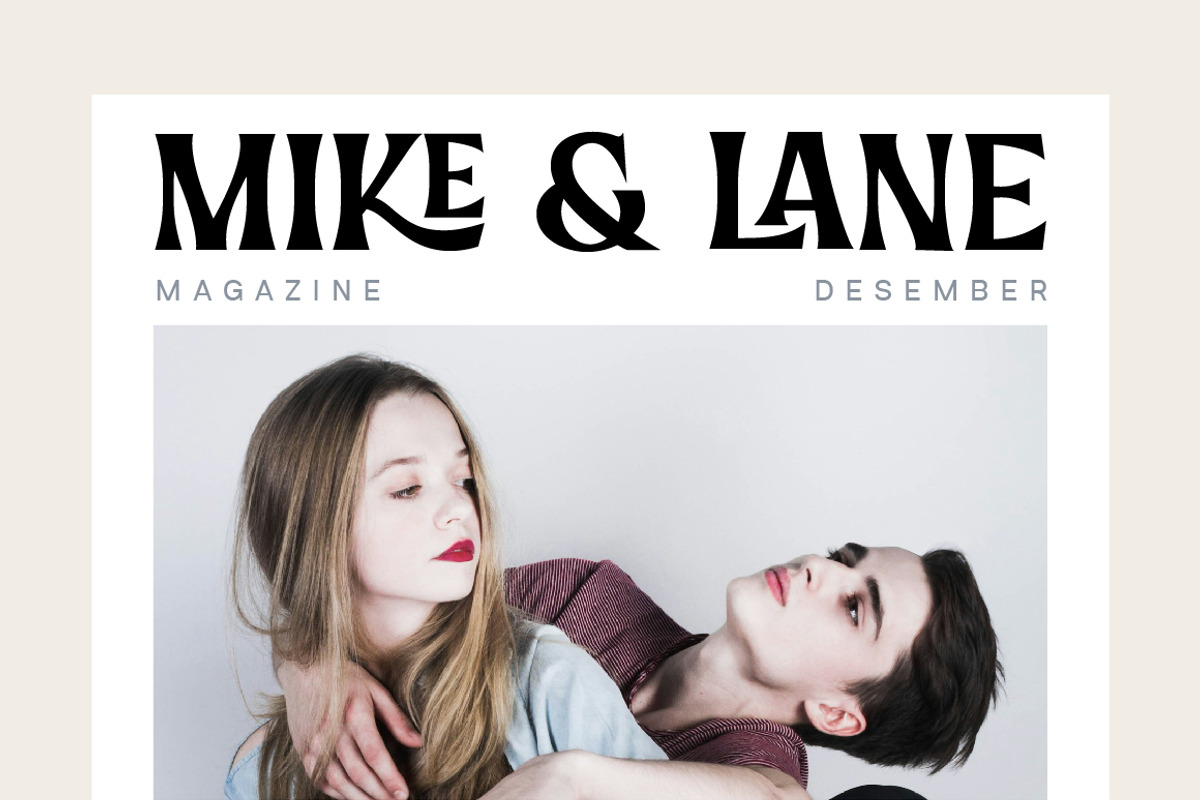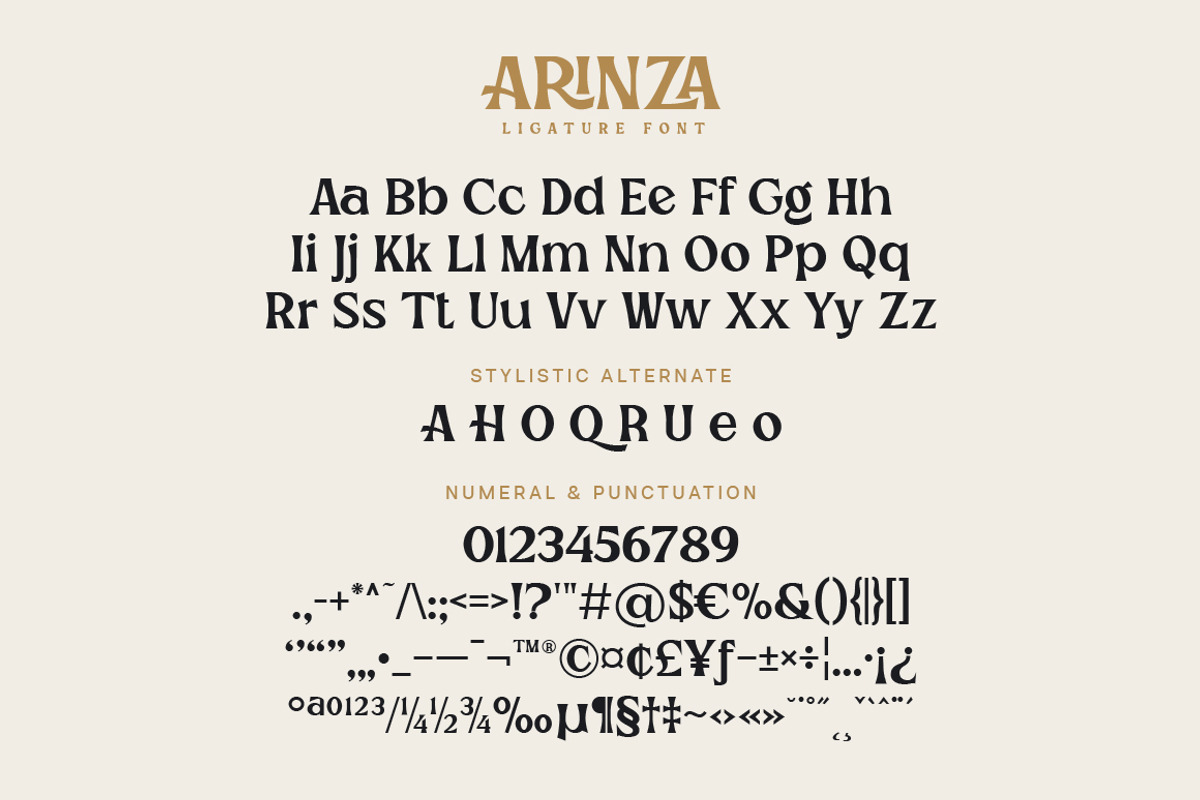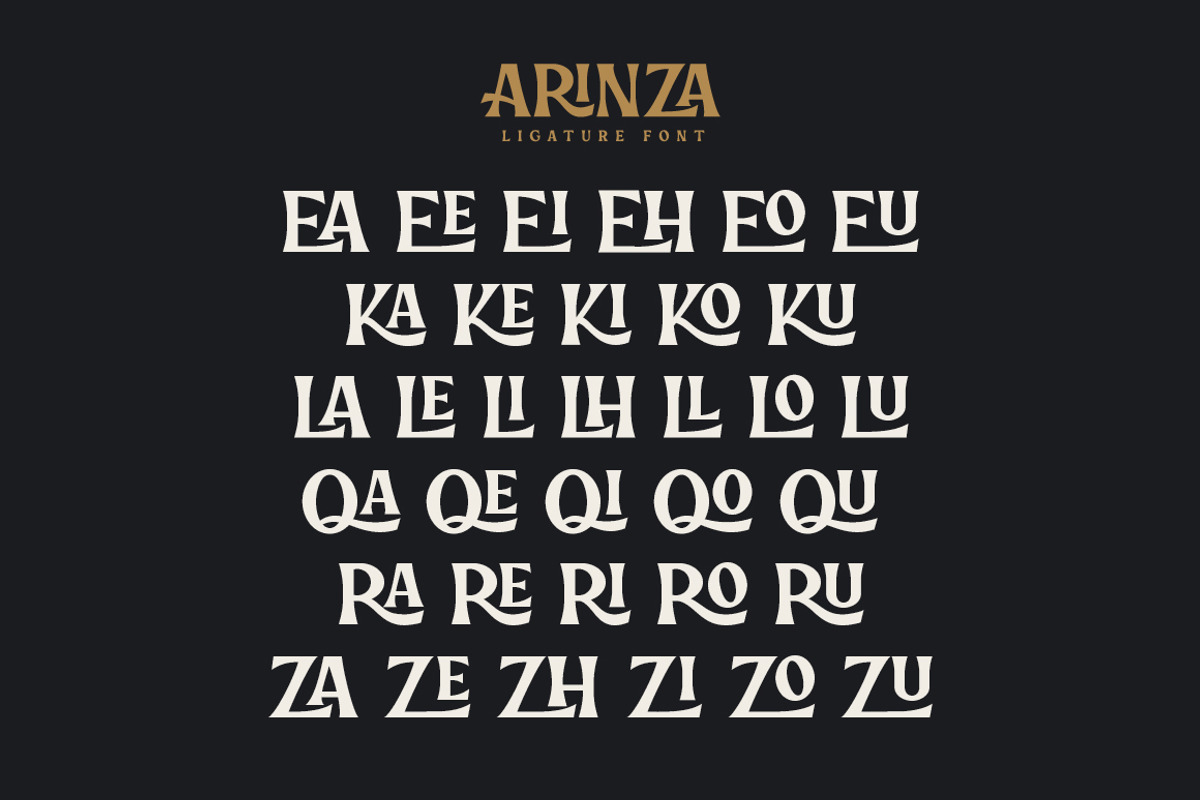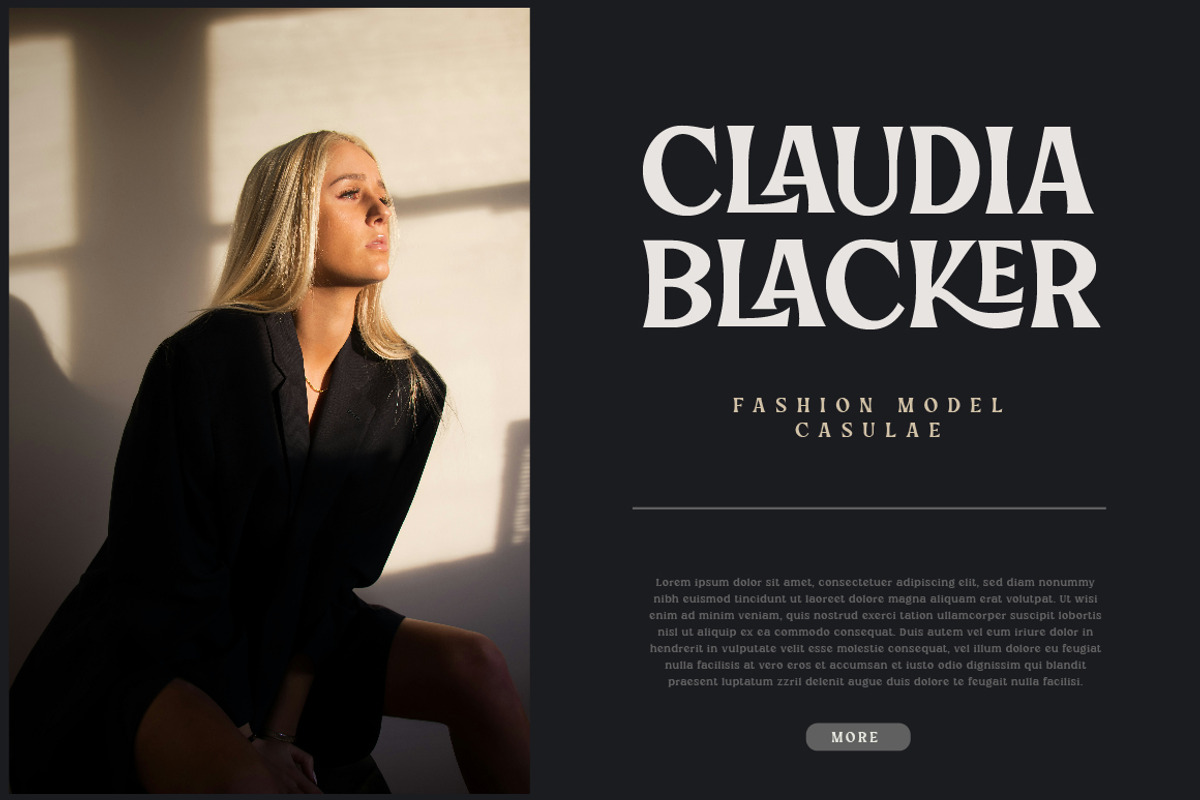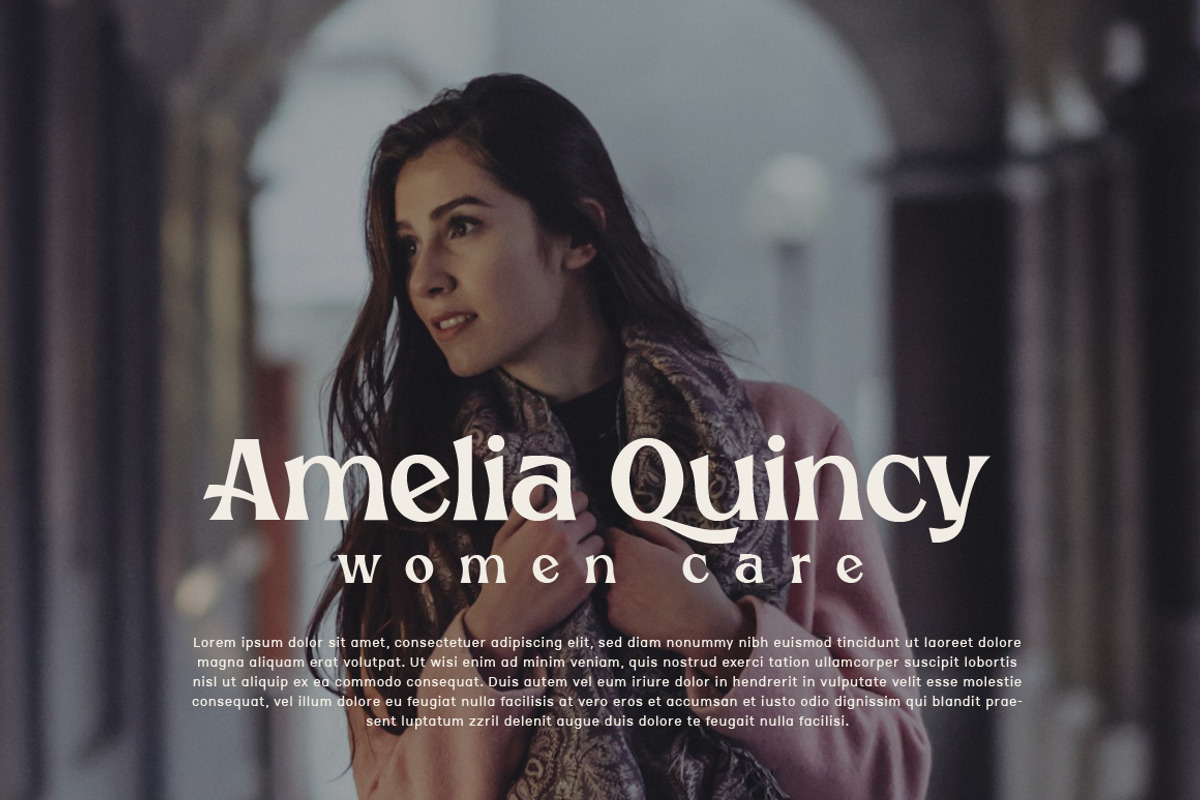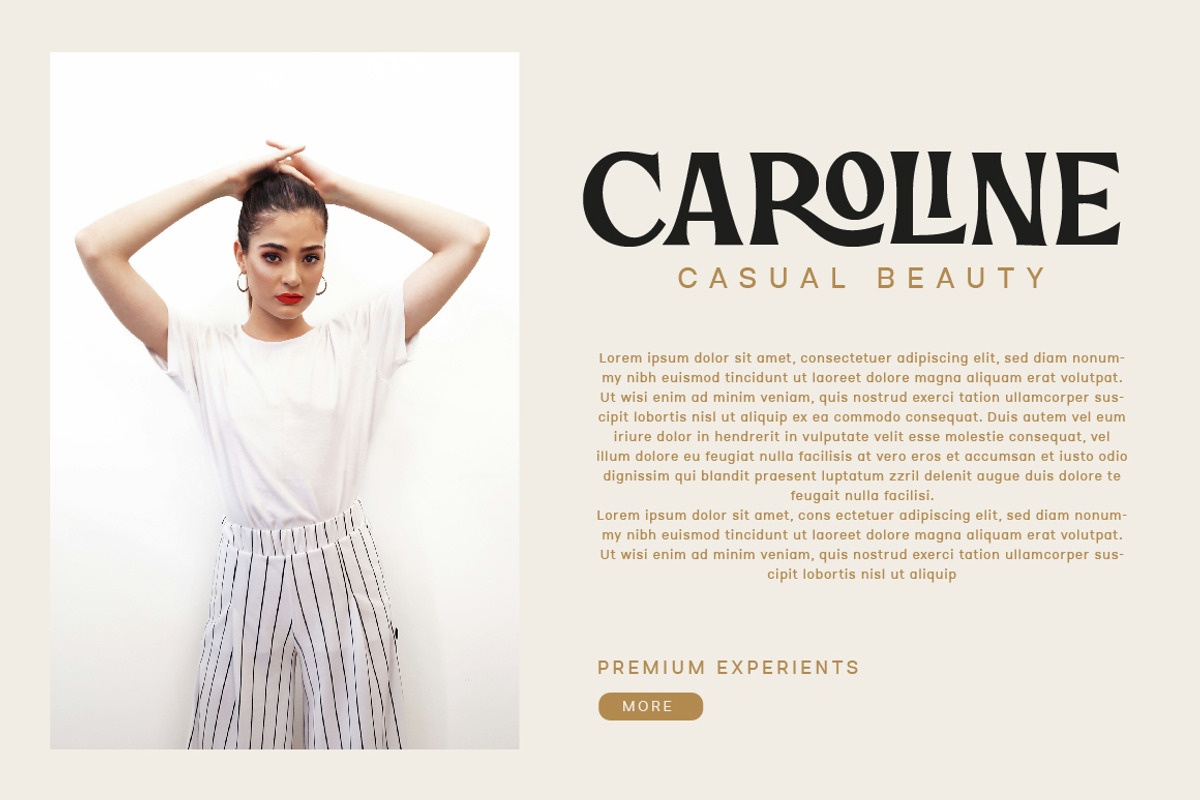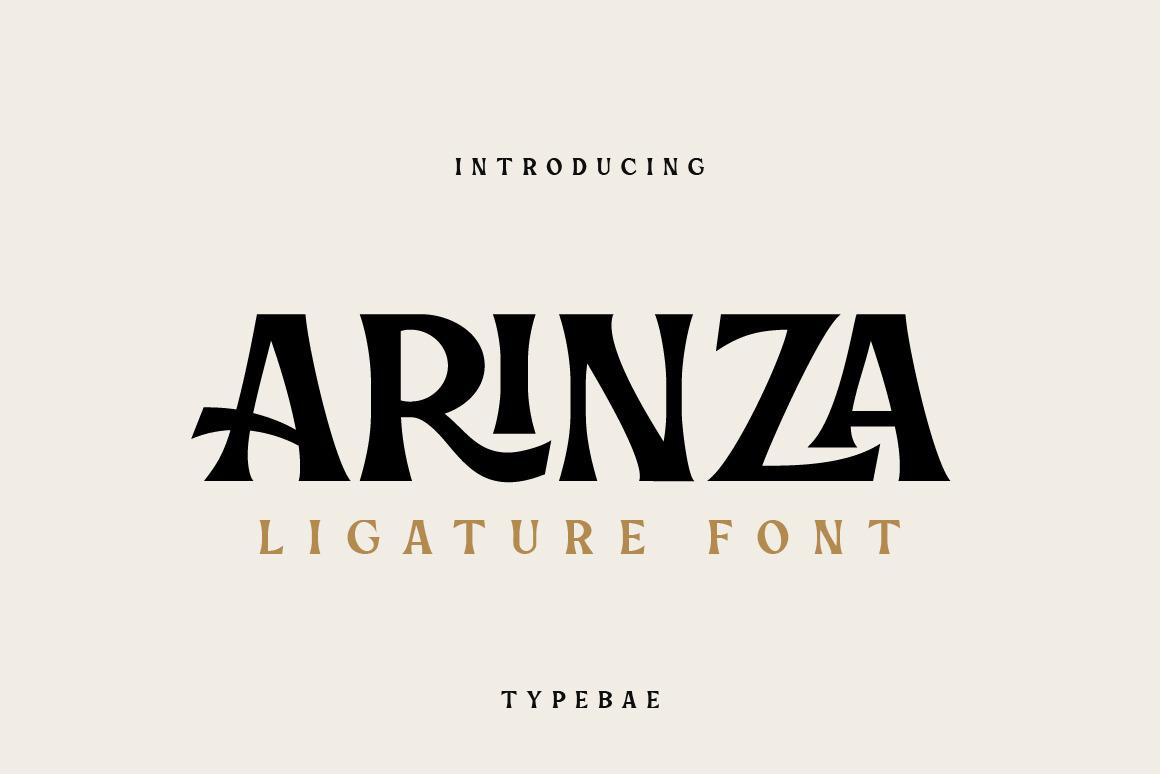
Arinza - Ligature Serif Font
Arinza is a display serif font crafted with a blend of modern classic elegance and stylish design. Featuring artistic ligature elements, it offers a distinctive and unique visual appeal. Its bold serif style and smooth letter curves create a captivating aesthetic, making it perfect for a variety of stylish branding needs from logos and packaging to high-end editorials.
- Uppercase, Lowercase, Numerals & Punctuation
- Stylistic Alternates & Ligatures